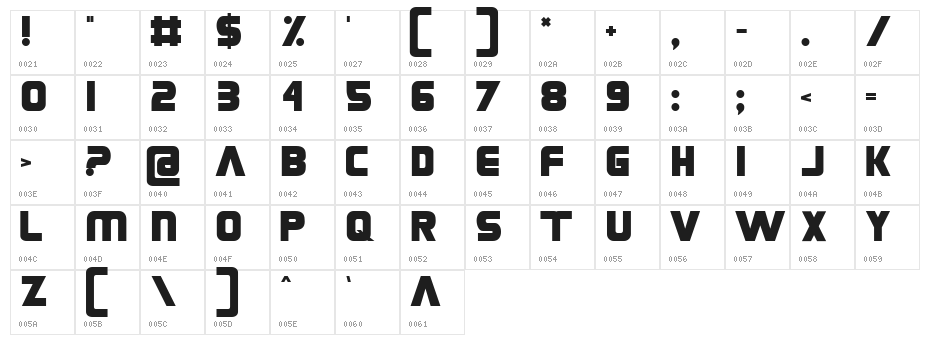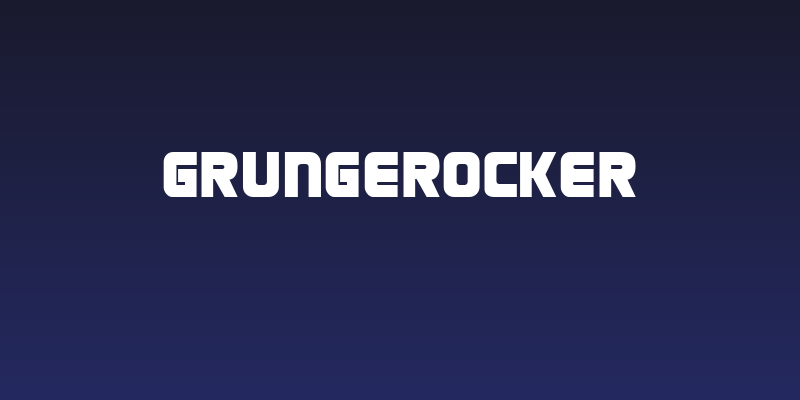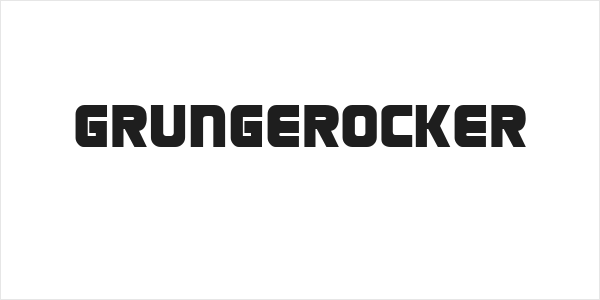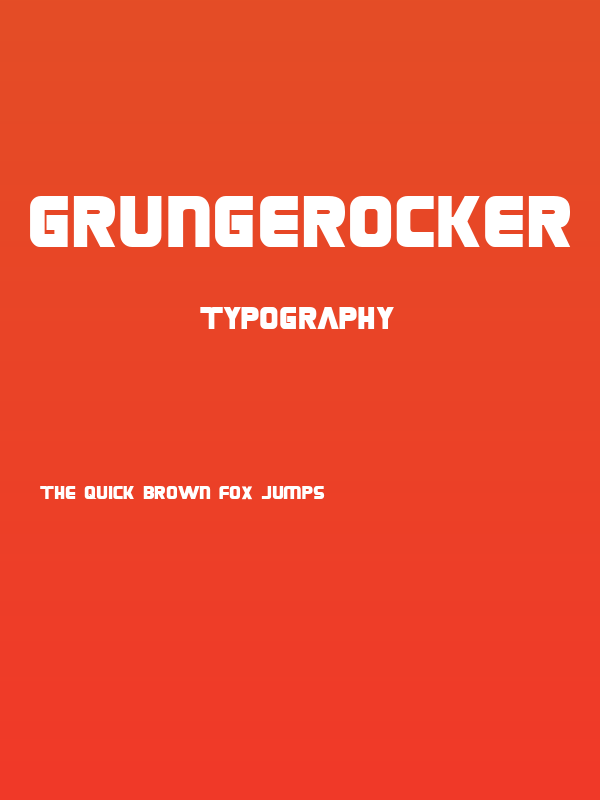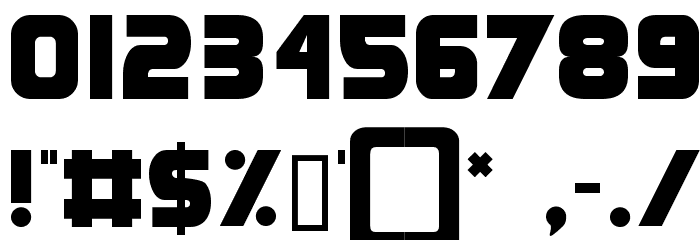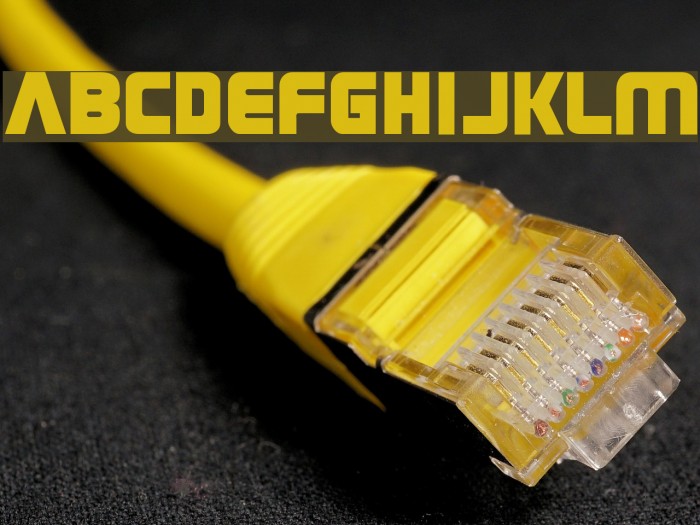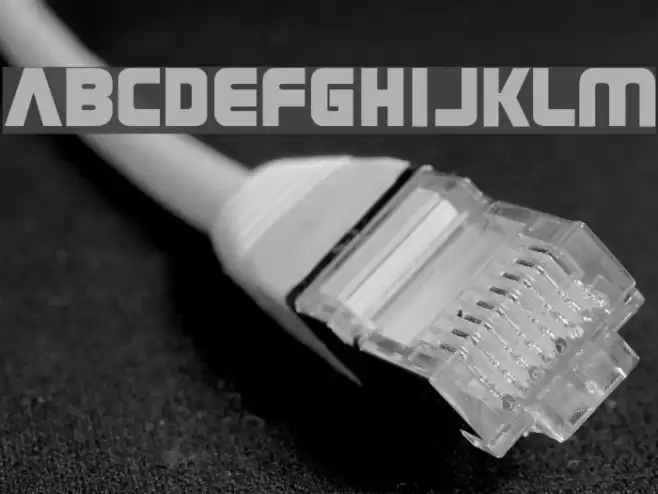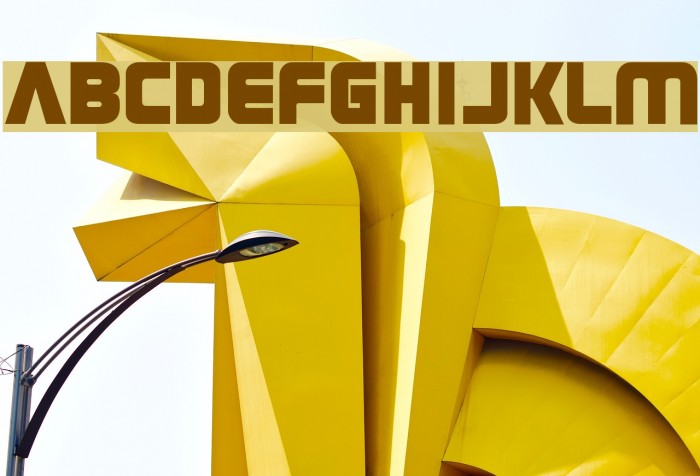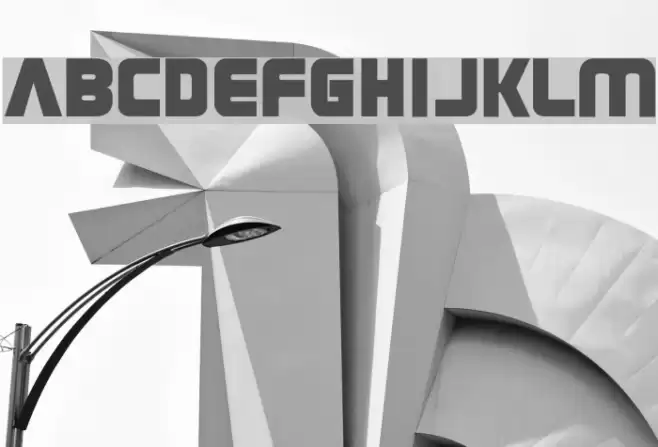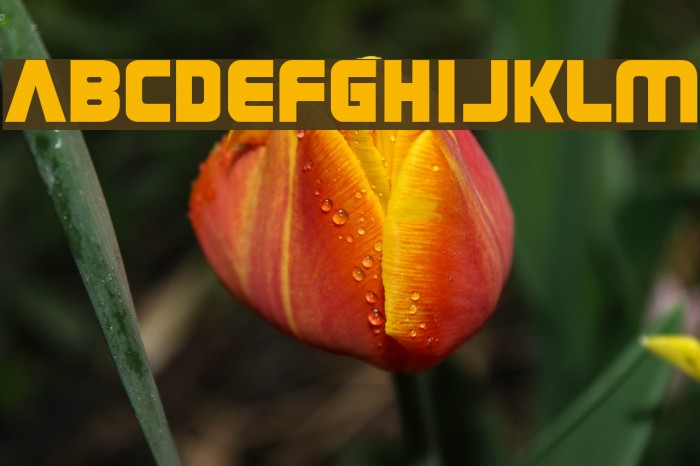
Grungerocker Font
Grungerocker Description
This font features a bold, geometric design with a strong presence. The characters are blocky and robust, with a uniform thickness that gives them a powerful and modern look. The uppercase and lowercase letters maintain a consistent style, emphasizing straight lines and sharp angles. The numbers and special characters follow the same design principles, ensuring a cohesive appearance across all glyphs. This font's boldness and clarity make it ideal for impactful headlines and attention-grabbing designs.
| Proposed Projects | Ideal for music album covers, posters, branding, and any project requiring a bold, modern aesthetic. |